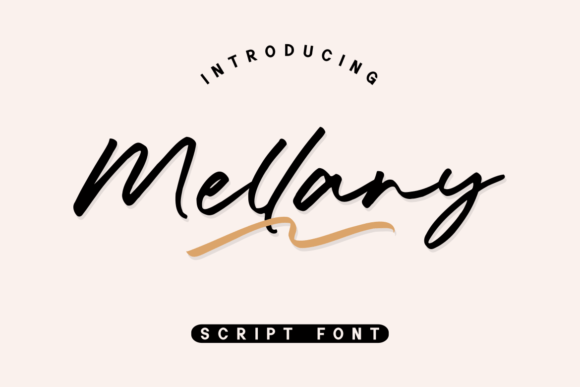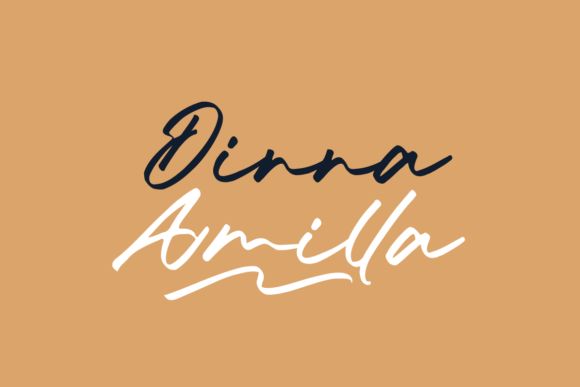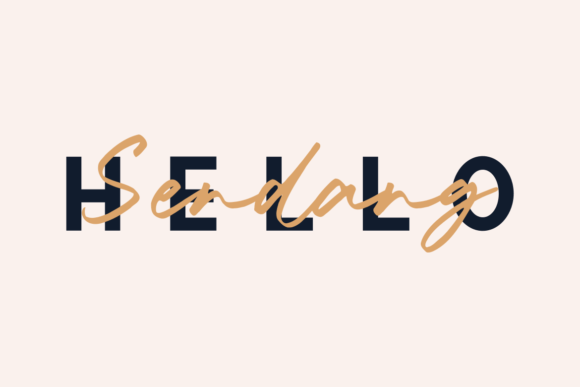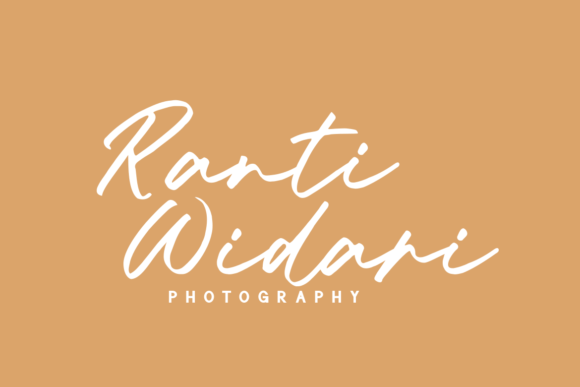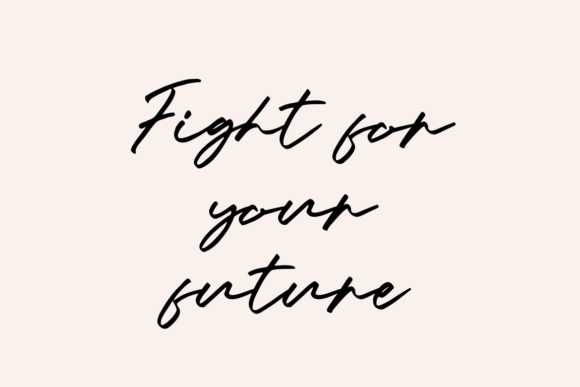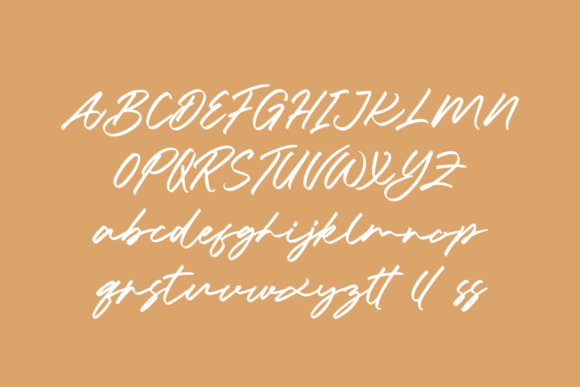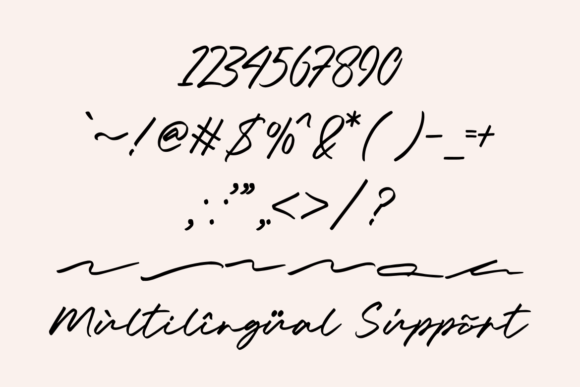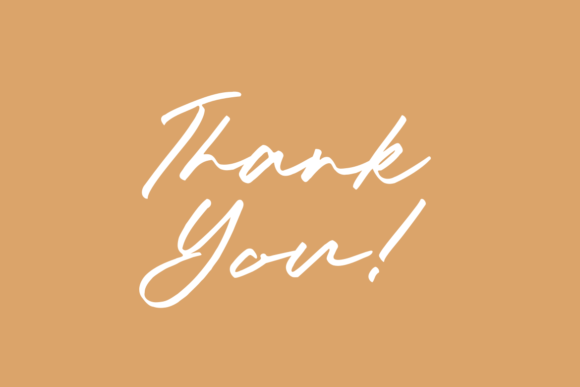
Mellany Font
About Mellany Font
“Mellany” is a gracefully flowing and elegant handwritten font that adds a personal and refined touch to your creative projects. This font’s beauty lies in its flowing script and delicate design, making it an ideal choice for creations that require a touch of sophistication and personality.
The allure of “Mellany” is in its ability to convey a sense of natural beauty and timeless elegance. The font’s smooth lines and graceful curves create a sense of refinement and charm, making it well-suited for projects that demand a personal and human touch.
One of the standout features of “Mellany” is its versatility. It can seamlessly adapt to various design themes and moods, making it suitable for both formal and creative applications. Whether you’re aiming for a classic and timeless look or a contemporary and artistic style, “Mellany” is a font that can deliver.
When you incorporate “Mellany” into your designs, you can expect your projects to exude a sense of elegance and authenticity. This font has the power to elevate your work and create a lasting impression on your audience, whether you’re designing for personal or professional purposes.
In summary, “Mellany” is not just a font; it’s a design asset that can enhance your creative projects with its flowing elegance and versatility. Its ability to add a personal touch and timeless beauty makes it a valuable addition to your design toolkit. Feel confident in using “Mellany” in your projects, and discover how it can bring a sense of sophistication and charm to your designs!